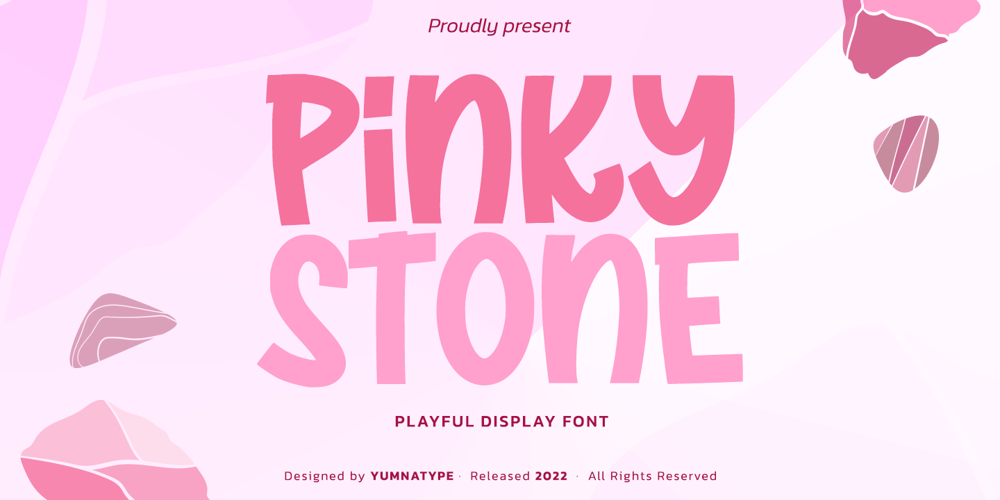
Pinky Stone Font Family was designed by Donis Miftahudin and published by Yumna Type. Pinky Stone contains 2 styles and family package options. Pinky Stone is a display font in thick weights and expresses feminim and fun nuances at the same time. It tends to be round in shapes with low contrasts. In addition, its line details are clean with the same letter proportions. Furthermore, Pinky Stone gives you a special bonus called the clipart. Use this font for big text sizes for a legibility reason and you can enjoy the interesting features available here as well.Features: Multilingual Supports PUA Encoded Numerals and Punctuations Pinky Stone fits for various design projects, such as posters, banners, logos, magazine covers, quotes, headings, printed products, merchandise, social media, etc. Find out more ways to use this font by taking a look at the font preview.Thanks for purchasing our fonts. Hopefully, you have a great experience using our font. Feel free to contact us for further information when you have a problem using the font. Thank you. Happy designing.